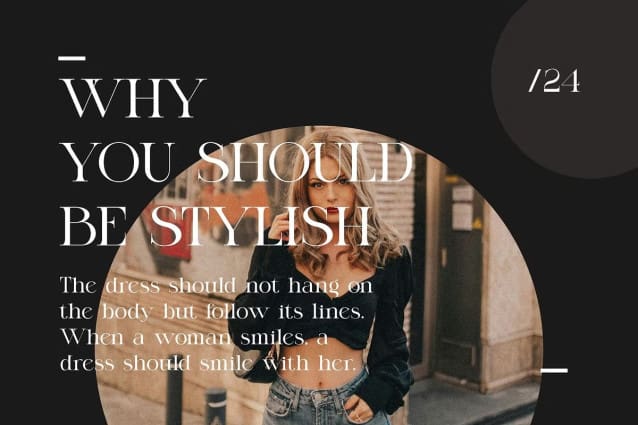
Ranken Mitron Font
Ranken Mitron Font – Modern Ligature Serif Typeface inspired by the famous minimalist logo perfect for the purposes of designing templates, brochures, videos, advertising branding, logos, invitations, layout design, elegant crafting, beauty design, and others.